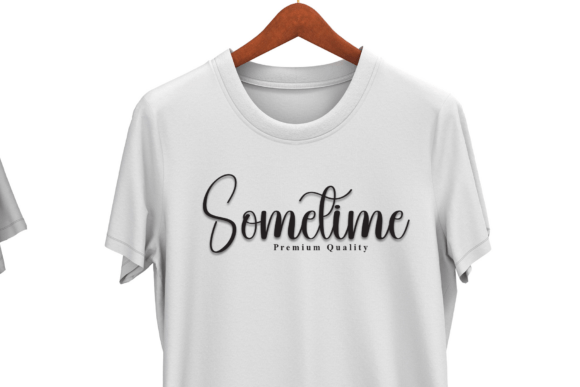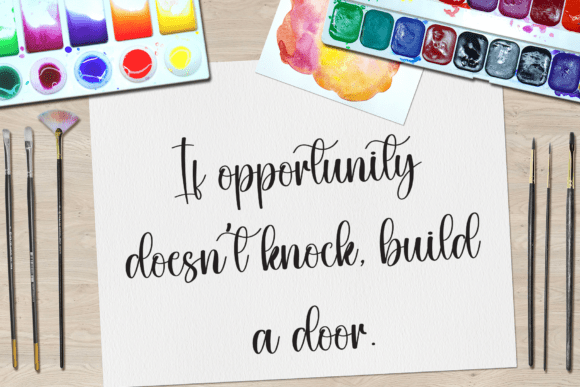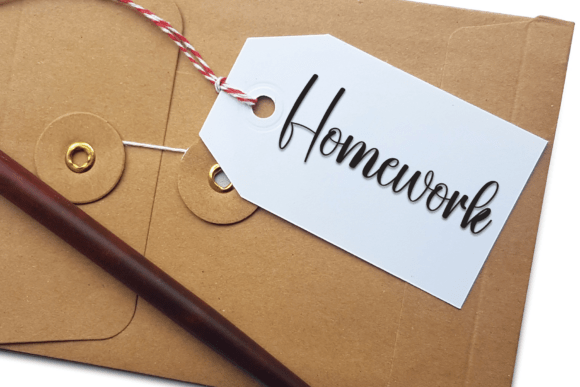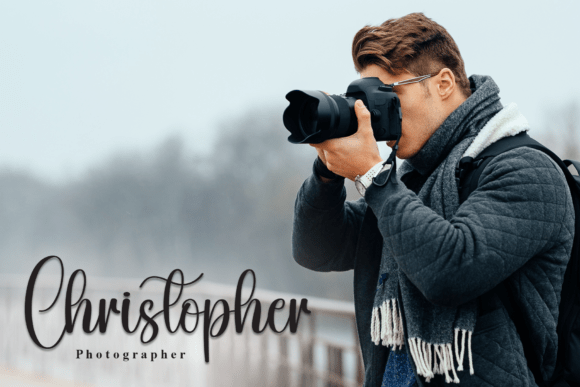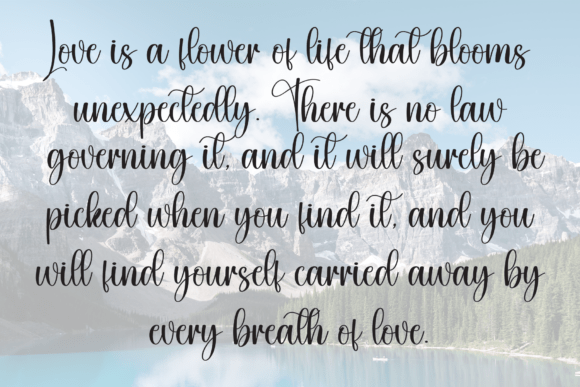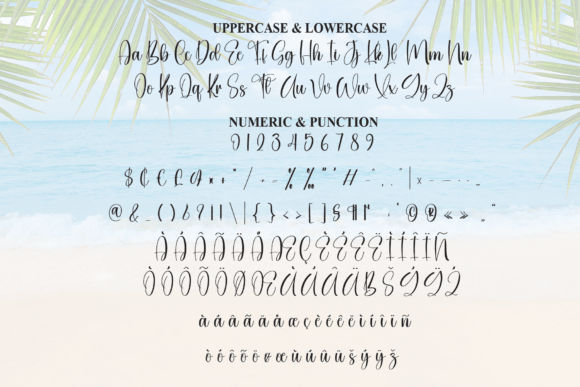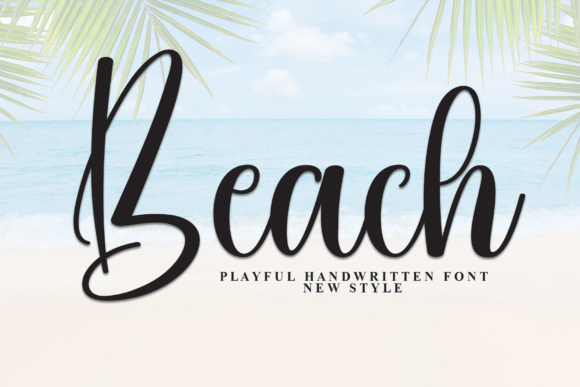
Introducing Beach Font: A Lovely and Timeless Handwritten Font
Are you a designer or crafter looking for a font that can add a touch of elegance and sophistication to your designs? Look no further than Beach Font, a beautiful and timeless handwritten font that is perfect for creating eye-catching logos, branding, and quotes.
What Makes Beach Font So Special?
Beach Font is a unique and stunning handwritten font that is sure to make your designs come alive. Every letter has a distinctive and beautiful touch, which sets it apart from other fonts. The font’s elegant and flowing script makes it perfect for creating beautiful logos, branding, and quotes that will capture the attention of your audience.
Beach Font is a versatile font that is perfect for designers and crafters who want to add a personal touch to their designs. Whether you’re creating a logo, branding, or quote, this font is sure to impress. Its unique and beautiful touch makes it perfect for a wide range of design projects, from wedding invitations to business cards.
Key Features of Beach Font
- Unique and Beautiful Touch: Every letter in Beach Font has a distinctive and beautiful touch that sets it apart from other fonts.
- Handwritten Script: The font’s elegant and flowing script makes it perfect for creating beautiful logos, branding, and quotes.
- Perfect for Logos and Branding: Beach Font is perfect for creating eye-catching logos and branding that will capture the attention of your audience.
- Easy to Read: The font is easy to read, making it perfect for creating quotes and other text-based designs.
- Use it for Logos and Branding: Beach Font is perfect for creating eye-catching logos and branding.
- Use it for Quotes and Text-Based Designs: The font’s elegant and flowing script makes it perfect for creating beautiful quotes and text-based designs.
- Experiment with Different Colors and Textures: Beach Font looks great in a variety of colors and textures. Experiment with different combinations to find the one that works best for your design.
Why Choose Beach Font?
There are many fonts to choose from, but Beach Font stands out from the rest. Here are a few reasons why:
- Unique and Beautiful Design: Beach Font has a unique and beautiful design that sets it apart from other fonts.
- High-Quality Design: The font is designed to be high-quality and easy to read.
- Versatile: Beach Font is perfect for a wide range of design projects, from logos and branding to quotes and text-based designs.
Beach Font is a lovely and timeless handwritten font that is perfect for designers and crafters who want to add a touch of elegance and sophistication to their designs. Its unique and beautiful touch makes it perfect for creating eye-catching logos, branding, and quotes. With its elegant and flowing script, Beach Font is sure to make your designs come alive!